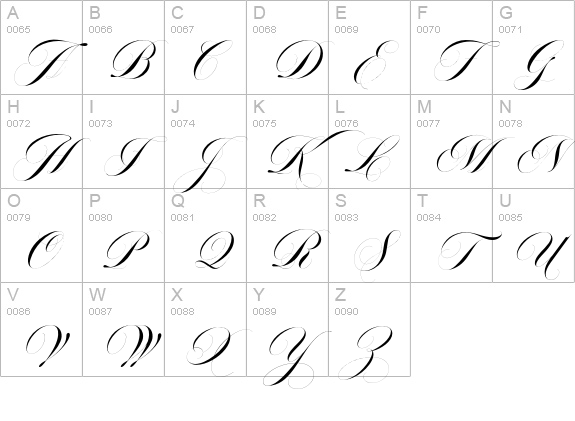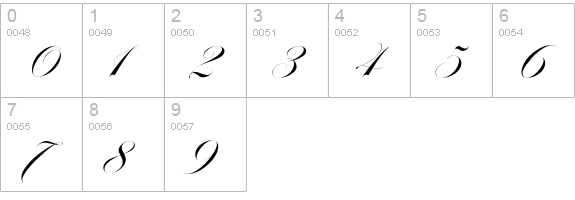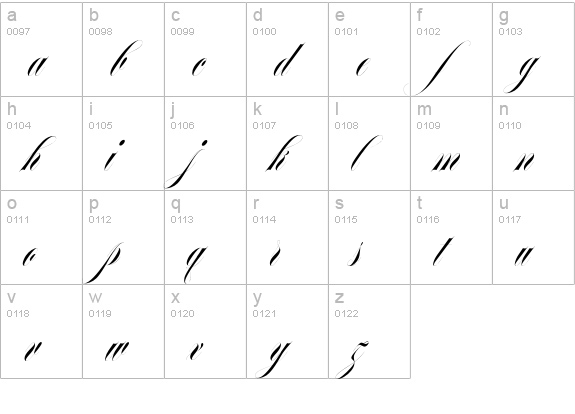
Introducing Erotica Big Pro font, a bold and alluring typeface that exudes sensuality and sophistication. With its sleek curves and elegant design, this font is perfect for adding a touch of glamour to your projects. Whether you're creating a romantic invitation, a seductive poster, or a steamy advertisement, Erotica Big Pro font is sure to make a statement. What's even better is that Erotica Big Pro font is available for free download at FontsMarket.com. Simply visit the website to access this stunning font and elevate your designs to a whole new level. Don't miss out on this opportunity to add a touch of passion and intrigue to your creative work with Erotica Big Pro font. Download it today and let your imagination run wild!